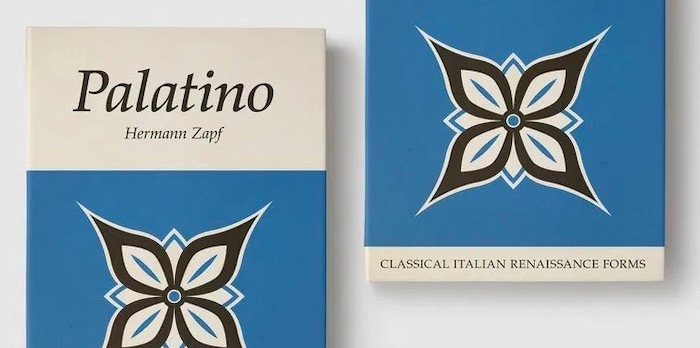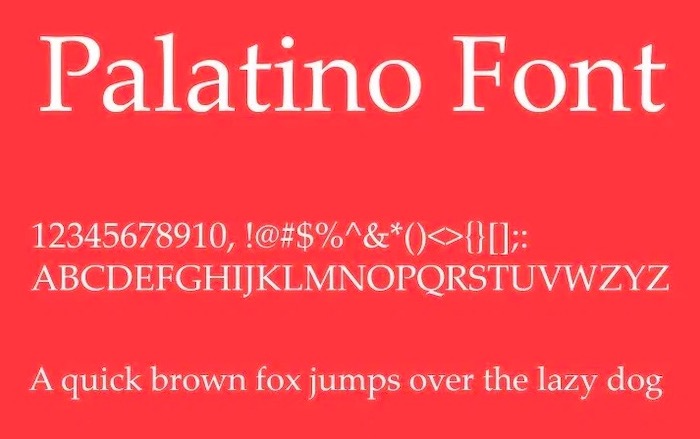
Palatino is a special Serif font, because, it is named after 16th century Italian master of calligraphy Giambattista Palatino. It became popular for body text and now, it will make your designs more beautiful day by day.
Palatino modern Serif Font
Designer Name: Hermann Zapf